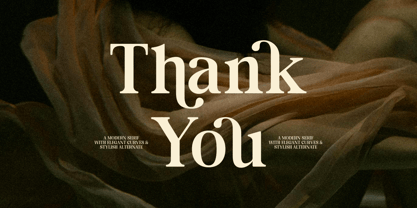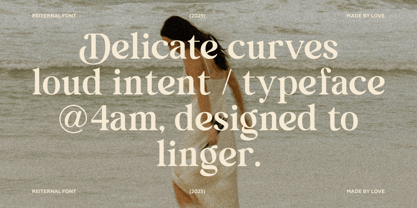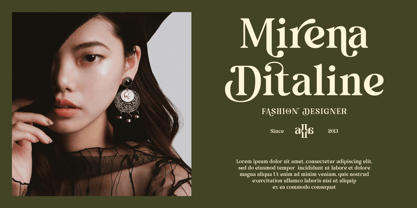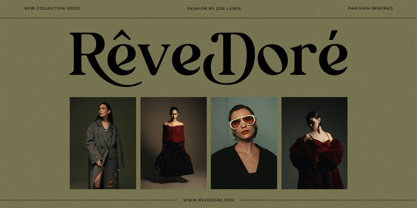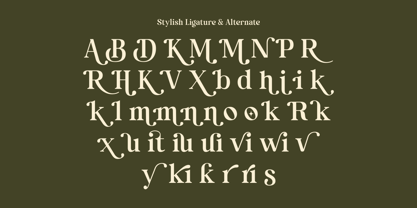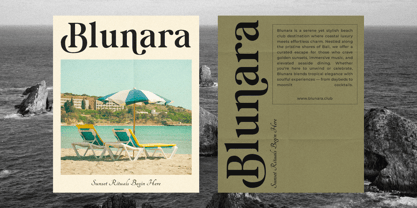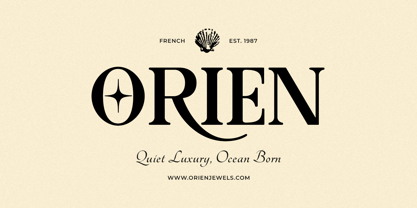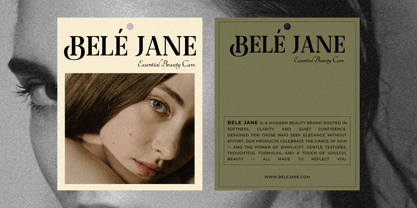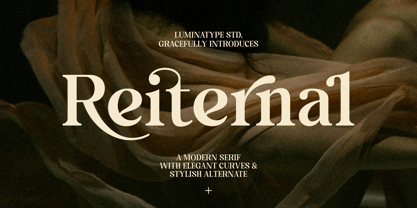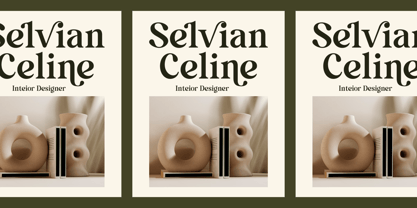
Reiternal
by Luminatype Studio
The Reiternal Font Family was designed by Bias Surya Buana and published by Luminatype Studio. Reiternal contains 2 styles and family package options. More about this family
Introducing the cinematic elegance and luxury of Reiternal Font, Available 2 Style in Regular and Oblique. sensationally created by Luminatype Studio. This articulate Sans serif font is the essence of finesse, impeccably designed to elevate your high-end projects. Let Reiternal infuse your designs with an unparalleled touch of sophistication and refinement.
Designers: Bias Surya Buana
Foundry: Luminatype Studio